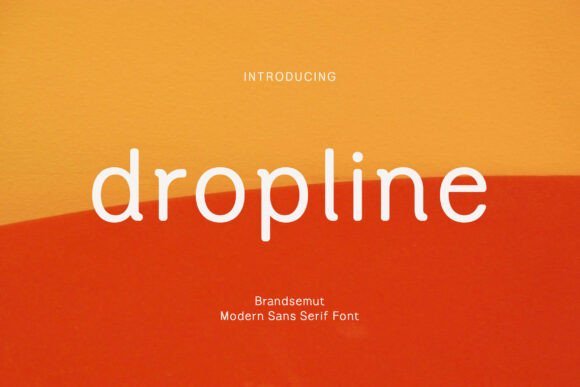
The Perfect Font for a First Impression
There’s nothing quite like the thrill of creating something new. The blank page, the empty canvas, the possibilities endless. As a designer, you know that choosing the right font can make all the difference between a project that shines and one that falls flat. For me, it’s always about finding that perfect combination of style and substance – and that’s where the Dropline Font comes in.
This modern sans-serif font is the perfect solution for designers looking to add a touch of sophistication to their projects. With its clean lines and smooth curves, Dropline Font is ideal for headings, logos, branding, magazines, product packaging, and even invitations. Whether you’re working on a high-end campaign or a personal project, this font is sure to make a lasting impression. By incorporating the Dropline Font into your designs, you’ll be giving your projects an extra touch of class that’s sure to stand out.
Dropline Font Key Features
- Font Family: Dropline is a sans-serif font family designed for modern and clean typography.
- Unique Characteristics: Dropline Font features a unique geometric design with clean lines, making it perfect for modern and minimalist designs.
Dropline Font Review
I recently had the chance to work with the Dropline Font, and I must say it’s a decent addition to any designer’s toolkit. ✨ The font’s clean lines and modern aesthetic make it perfect for creating a sleek, professional look in any design project.
Here are some of the things that I particularly like about Dropline Font:
- ✨ Versatility: Dropline Font is incredibly versatile and can be used for a wide range of design projects, from business cards to website headers.
- ✨ Readability: The font is highly legible, making it perfect for long blocks of text or body copy.
- ✨ Customization: Dropline Font offers a range of customization options, allowing designers to tweak the font to fit their specific needs.
- ⚠️ Limited expressiveness: Dropline Font is a clean and modern font, but it may not be the best choice for projects that require a lot of flair or personality.
- ⚠️ Limited support for older browsers: Some older browsers may not support the font’s advanced features, which could cause compatibility issues.
Overall, I think Dropline Font is a solid choice for designers who are looking for a clean, modern font that can be used in a variety of projects. While it may not be the best choice for every project, it’s definitely worth considering for designers who value simplicity and versatility.
Dropline Font: A Practical Application Guide
To get the most out of the Dropline Font, use it in conjunction with other design elements to create a cohesive look. Experiment with different font sizes, colors, and styles to find the perfect combination for your design. You can also use the Dropline Font in combination with other fonts to create a unique and interesting typography.
The Dropline Font is perfect for creating a modern and elegant look in your designs. Some common use cases include:
- Posters and banners